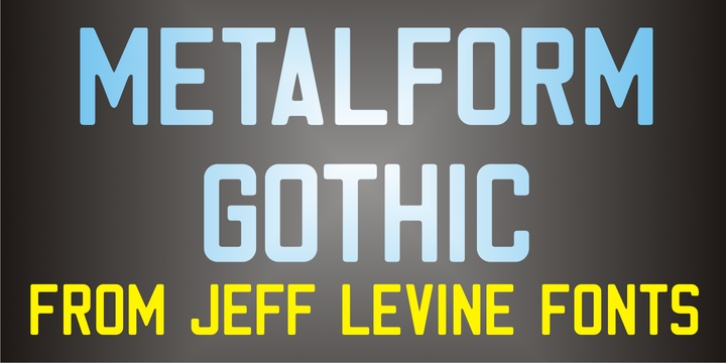
Metalform Gothic JNL was designed by Jeff Levine and published by Jeff Levine. Metalform Gothic JNL contains 1 style.
Metalform Gothic JNL is based on examples of stamped metal numbers used for house identification and similar purposes. The lettering is square in shape with rounded corners, perfect for text that needs to emit authoritarian messages or instructions.